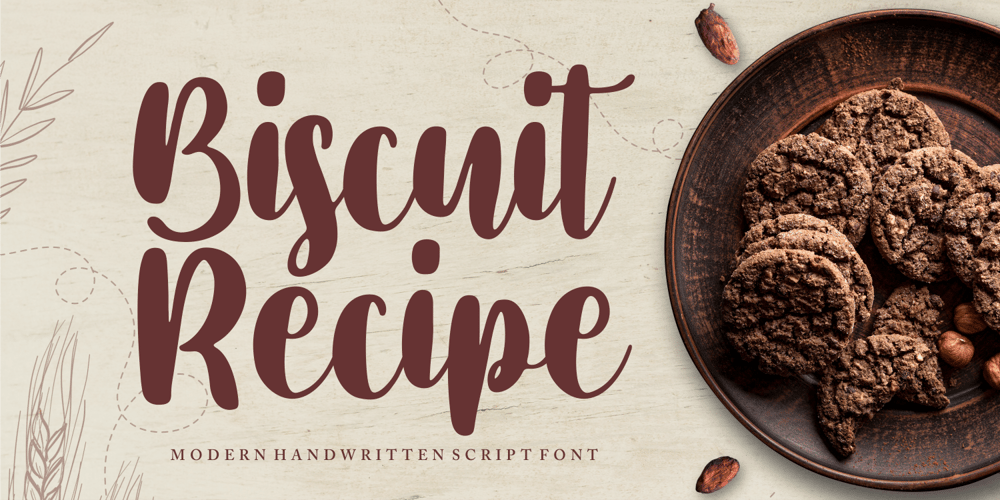
Biscuit Recipe Font Family was designed by ANGGI HERMAWAN and published by Forberas Club. Biscuit Recipe contains 1 styles and family package options. Biscuit Recipe is handwritten font with pressure style. This font is good to application for wedding, tees, simple letter, notes, invitation, celebration, cute moment and many more.